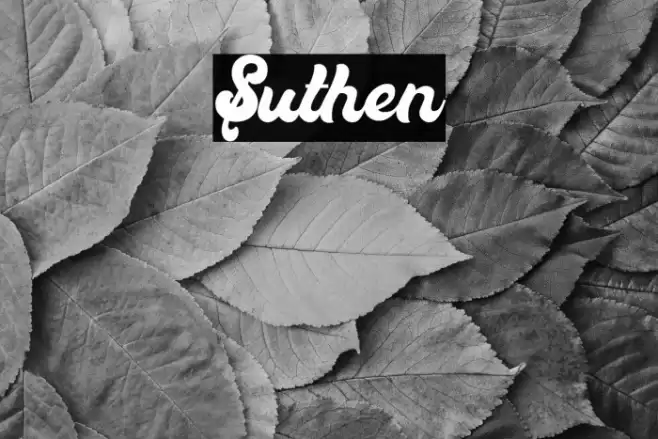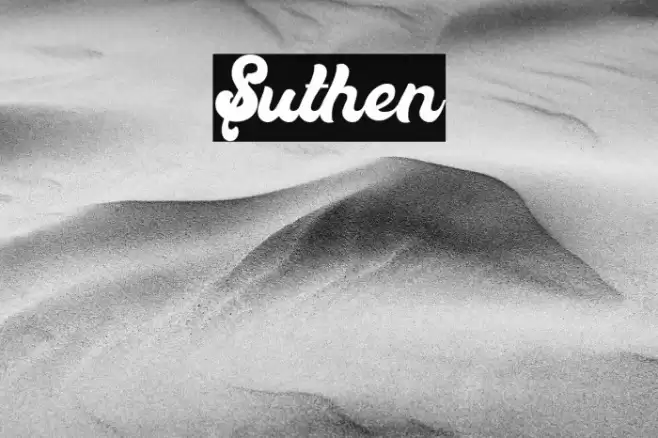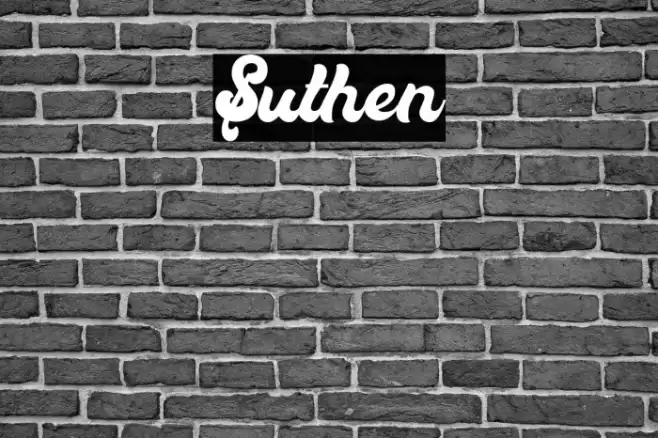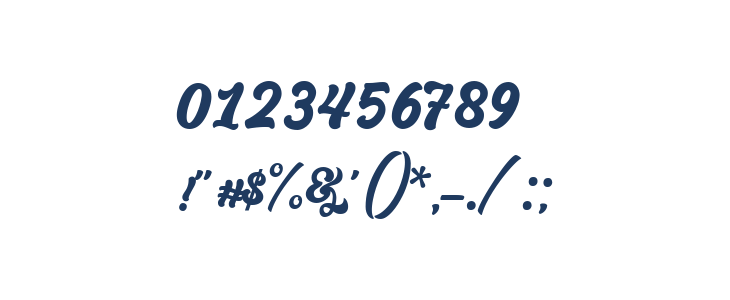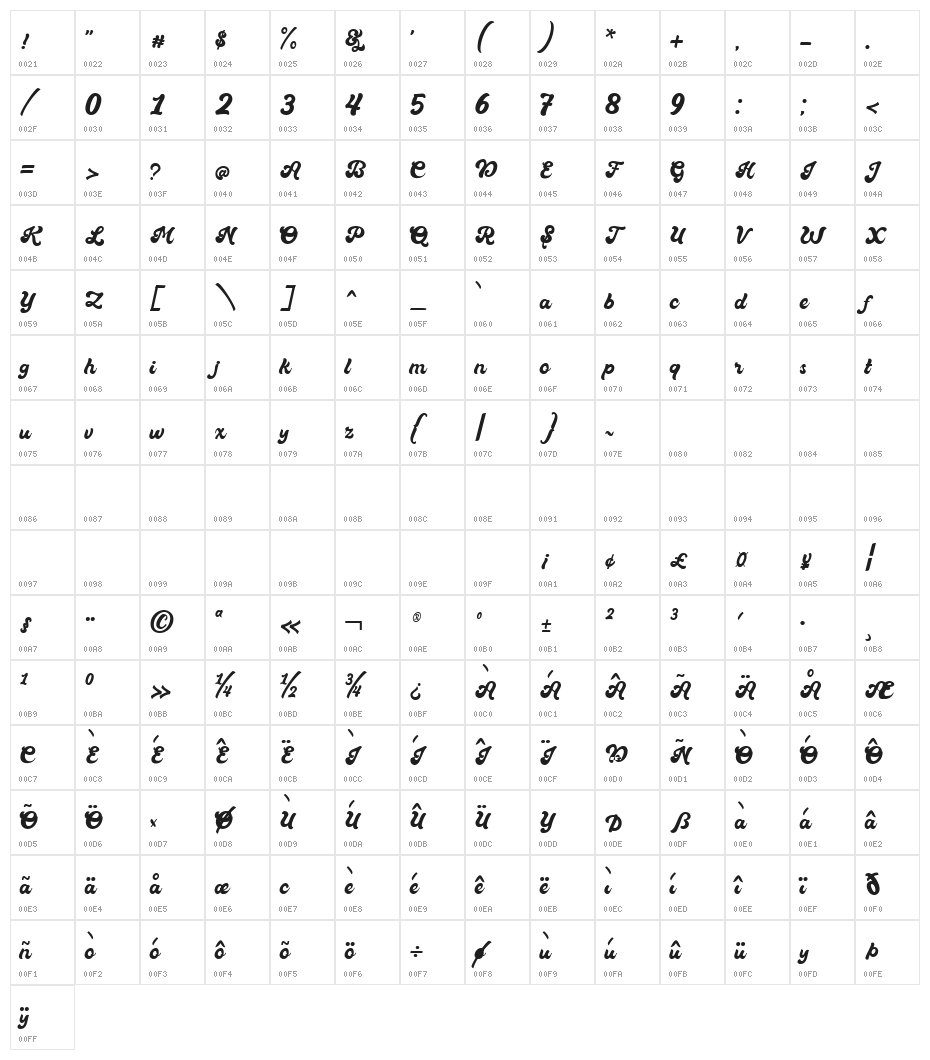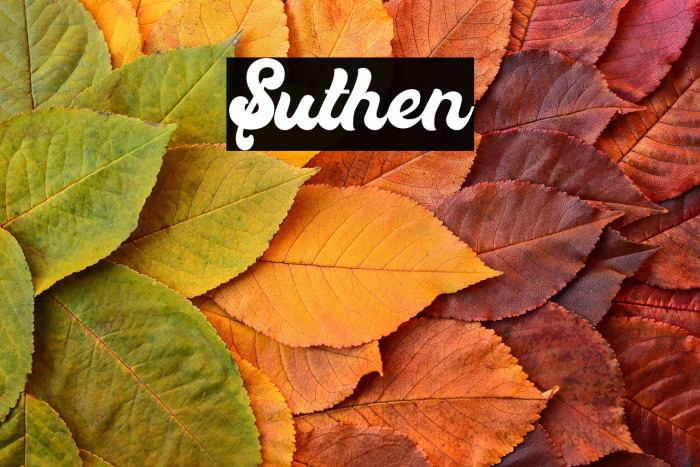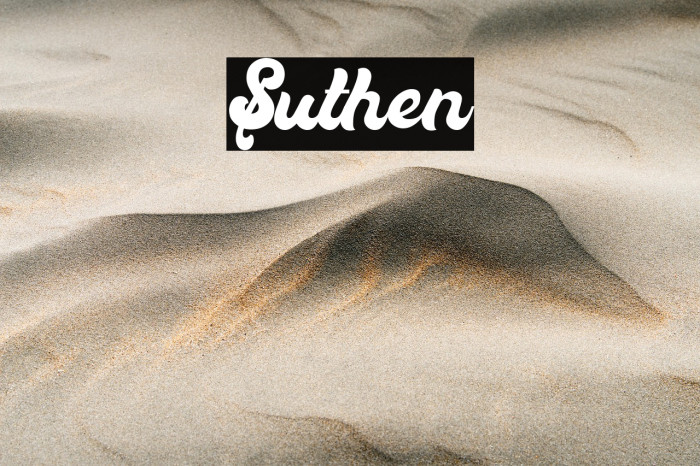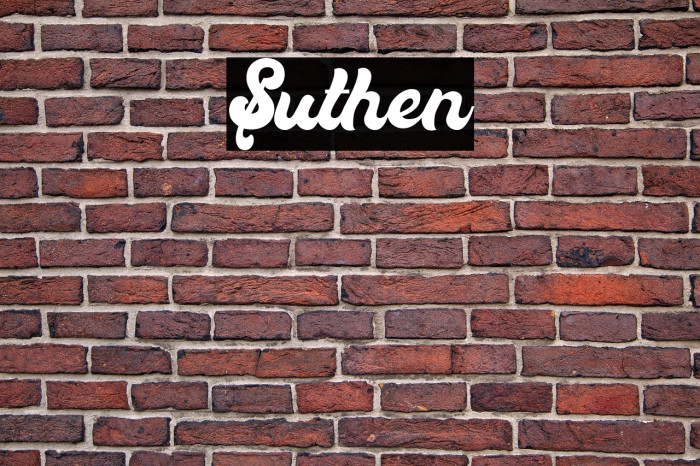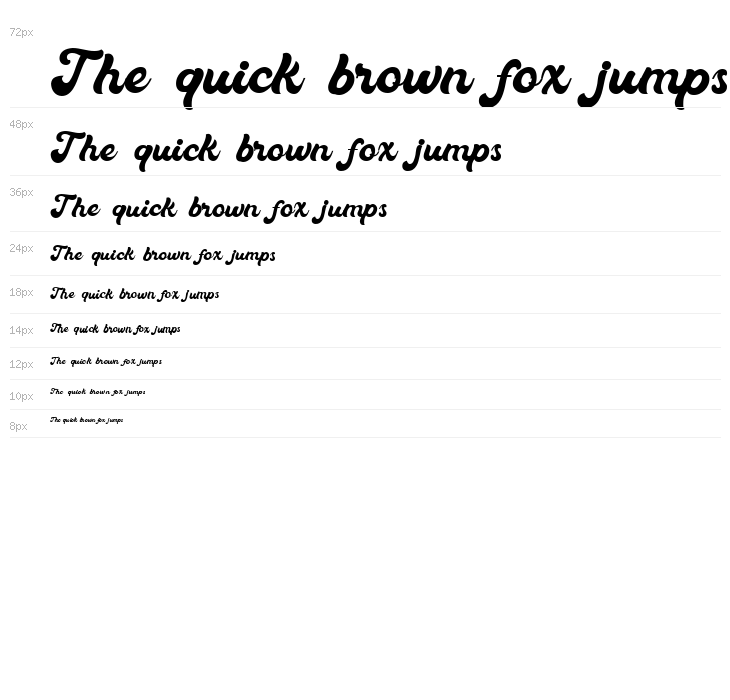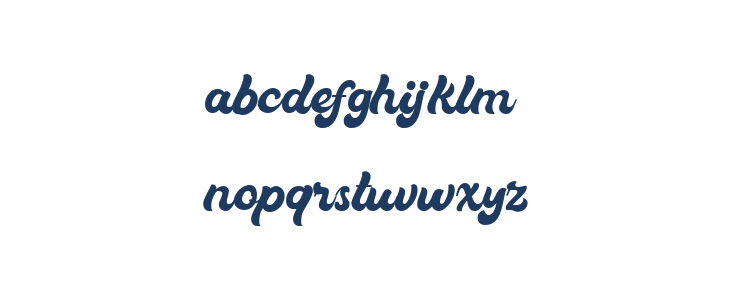
Suthen Font
Suthen Description
This font features a bold and flowing script style with a playful and dynamic character. The uppercase letters are particularly ornate, with exaggerated curves and loops that give them a sense of movement and flair. The lowercase letters maintain a consistent style, with smooth connections between characters that enhance readability. The numerals are equally bold, matching the overall aesthetic of the font. Special characters are designed with the same attention to detail, ensuring a cohesive look across all glyphs. This font's distinctive style makes it suitable for creative and expressive design projects.
A bold, flowing script font with dynamic curves and playful character from Regular fonts.
- Font: Suthen
- Proposed Projects: Ideal for branding, invitations, greeting cards, and artistic posters.
- Use Case: Logos, Headlines, Creative projects